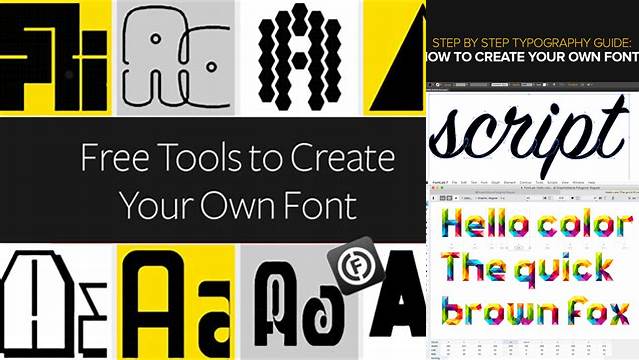
Create Font Free: Your Guide To Free Font Creation
Creating your own fonts might sound like a super complex task reserved for design pros, but guess what? It's totally achievable, and you can even do it for free! Whether you're a seasoned designer or just someone who loves to doodle, the world of font creation is surprisingly accessible. Let's dive into how you can create font free and unleash your inner typographer.
1. Introduction to Free Font Creation
So, what's the big deal about creating your own fonts? Well, creating font free gives you the power to express your unique style and vision. Imagine having a font that perfectly captures your brand's personality or a handwritten font that adds a personal touch to your projects. The possibilities are endless! Plus, it's a fantastic way to learn about typography and design. This section will cover the basic concepts of font creation and why you might want to embark on this creative journey. We'll look at the different types of fonts you can create, from elegant serifs to playful sans-serifs, and discuss the importance of understanding typography principles. Think of it as your 101-level class in the art of font design!
2. Software Options for Free Font Design
Okay, you're pumped to create font free, but what tools do you need? Luckily, there's a bunch of awesome software out there that won't cost you a dime. We're talking about free font editors that pack a punch. These programs often come with all the essential features you need to draw glyphs, adjust spacing, and export your font in various formats. We'll explore some of the top contenders in the free font design software arena. Think of tools like FontForge, BirdFont, and Glyphr Studio. Each has its own quirks and strengths, so we'll help you figure out which one is the best fit for your needs. We’ll cover the user interfaces, the features, and even some tips and tricks to get you started. It’s like having a personal software guide to navigate the world of free font creation!
3. Understanding Font Anatomy
Before you jump into creating font free, let's get familiar with the anatomy of a font. Sounds like a science class, right? But trust us, knowing your serifs from your ascenders will make a huge difference in your font design. We'll break down all the key elements of a letterform, from the baseline to the x-height and everything in between. Understanding these terms will give you the vocabulary to discuss fonts intelligently and to make informed design decisions. We’ll use visual examples to illustrate each term and show you how they work together to create a cohesive typeface. It’s all about building a solid foundation of knowledge so you can create font free with confidence and skill.
4. Basic Principles of Typography
So you’re eager to create font free? Awesome! But remember, a great font isn't just about pretty shapes; it's about readability and usability too. This is where typography principles come in. We'll delve into the core concepts of kerning, leading, and tracking. These might sound like technical terms, but they're crucial for ensuring your font looks good in any context. We'll explain how to adjust the spacing between letters and lines to achieve optimal readability. We’ll also discuss how different font styles can evoke different emotions and how to choose the right font for your project. It’s like learning the secret language of typography – once you crack the code, you can communicate more effectively through your designs!
5. Drawing Your First Glyph
Alright, let's get our hands dirty and draw some letters! This section is all about the practical steps of creating font free. We'll walk you through the process of drawing your first glyph, which is essentially a single character in your font. We'll cover different techniques for creating letterforms, whether you prefer sketching by hand and digitizing your drawings or working directly in your font editor. We’ll use examples and step-by-step guides to make the process clear and easy to follow. We’ll also discuss common pitfalls to avoid and tips for achieving consistency in your letterforms. It’s like a mini-workshop where you’ll learn to bring your font ideas to life, one letter at a time.
6. Kerning and Spacing Techniques
Kerning and spacing – sounds technical, but it's the secret sauce to a professional-looking font. When you create font free, getting this right is key. We'll teach you how to adjust the spaces between letters so your words flow smoothly. Think of it like fine-tuning a musical instrument – each letter needs to harmonize with its neighbors. We’ll cover different kerning techniques and show you how to use your font editor’s tools to achieve perfect spacing. We’ll also discuss common kerning problems and how to fix them. It’s like becoming a font whisperer, able to make subtle adjustments that have a big impact on readability and visual appeal.
7. Mastering Bézier Curves for Font Design
Bézier curves – the backbone of digital font design! If you want to create font free that looks polished and professional, you need to master these curves. We'll break down the mystery of Béziers, explaining how they work and how to use them to create smooth, elegant shapes. We'll cover the tools and techniques for manipulating Bézier curves in your font editor. We’ll also share tips for avoiding common mistakes and achieving precise control over your letterforms. It’s like unlocking a superpower – once you understand Bézier curves, you can create virtually any shape you can imagine!
8. Creating Different Font Weights
A single font can come in many weights – think light, regular, bold, and so on. When you create font free, knowing how to make these variations is essential for versatility. We'll guide you through the process of creating different font weights, explaining how to adjust the stroke thickness and overall appearance of your letterforms. We'll discuss design principles for maintaining consistency across different weights. We’ll also show you how to use your font editor’s features to streamline the process. It’s like learning to sculpt with letters, shaping them to fit a variety of design needs.
9. Adding Italics and Obliques
Italics and obliques add flair and emphasis to your typography. If you’re serious about create font free, you’ll want to know how to make them. We'll explain the difference between italics and obliques and walk you through the process of creating them for your font. We'll cover design considerations for ensuring your italics and obliques complement your regular font style. We’ll also show you how to use your font editor’s tools to create these variations efficiently. It’s like adding a new dimension to your font, giving it the ability to dance and sing in different styles.
10. Exploring Ligatures and Special Characters
Ligatures and special characters add polish and personality to your font. To truly create font free that shines, these details matter. We'll explore the world of ligatures, which are special letter combinations, and show you how to create them. We'll also discuss the process of adding accents, symbols, and other special characters to your font. We’ll cover the technical aspects of encoding these characters and making them accessible in your font editor. It’s like adding the finishing touches to a masterpiece, ensuring your font is both beautiful and functional.
11. Testing Your Font for Readability
Creating a beautiful font is one thing; making sure it's readable is another. When you create font free, testing is crucial. We'll discuss various methods for testing your font's readability in different contexts. We'll cover best practices for text sizing, line spacing, and color contrast. We’ll also show you how to use online tools and software to evaluate your font’s performance. It’s like putting your font through its paces, ensuring it’s ready for the real world.
12. Exporting Your Font in Different Formats
Once you've created your font, you need to export it in the right format. If you want to create font free and then actually use it, this step is key. We'll explain the different font formats, such as TTF, OTF, and WOFF, and their respective advantages. We'll walk you through the process of exporting your font in your chosen format using your font editor. We’ll also cover best practices for optimizing your font for different platforms and devices. It’s like packing your font for its journey into the world, ensuring it arrives safe and sound.
13. Licensing Your Free Font
So you create font free and want to share it? Awesome! But think about licensing. We'll discuss different font licenses, such as the SIL Open Font License and Creative Commons licenses. We'll explain the implications of each license and help you choose the right one for your font. We’ll also provide guidance on how to properly attribute your font and protect your intellectual property. It’s like setting the rules of the game, ensuring your font is used in a way that aligns with your intentions.
14. Sharing Your Font with the World
You've poured your heart into creating font free – now it's time to share it! We'll explore various platforms and communities where you can showcase and distribute your font. We'll cover online font foundries, design marketplaces, and social media channels. We’ll also offer tips for promoting your font and building a following for your work. It’s like launching your font into the universe, ready to make its mark on the world.
15. FontForge Tutorial for Beginners
FontForge is a powerful, free font editor. If you want to create font free, this is a great tool. We'll provide a comprehensive tutorial for beginners, covering the basics of the FontForge interface and workflow. We'll walk you through the process of drawing glyphs, adjusting spacing, and exporting your font. We’ll also share tips and tricks for mastering FontForge’s advanced features. It’s like having a personal FontForge mentor, guiding you through every step of the way.
16. Glyphr Studio: A Web-Based Font Editor
Glyphr Studio offers an accessible way to create font free right in your browser. We'll explore the features and benefits of this web-based font editor. We'll provide a step-by-step guide to using Glyphr Studio, covering everything from creating new glyphs to exporting your font. We’ll also share tips for optimizing your workflow and making the most of Glyphr Studio’s unique tools. It’s like having a portable font creation studio at your fingertips, ready to use anytime, anywhere.
17. BirdFont: A Simple Yet Powerful Font Editor
BirdFont is another excellent choice for those looking to create font free without a steep learning curve. We'll review the key features and benefits of BirdFont. We'll provide a tutorial covering the basics of BirdFont's interface and workflow. We’ll also offer tips for using BirdFont’s unique features to create stunning fonts. It’s like discovering a hidden gem in the world of font editors, simple yet incredibly powerful.
18. Troubleshooting Common Font Design Issues
When you create font free, you'll likely hit some bumps along the road. We'll address common font design issues, such as inconsistent letterforms, spacing problems, and technical glitches. We'll provide troubleshooting tips and solutions to help you overcome these challenges. We’ll also offer advice on how to prevent these issues from arising in the first place. It’s like having a font doctor on call, ready to diagnose and fix any problems that come your way.
19. Font Creation for Different Languages
Creating fonts that support multiple languages adds complexity. But if you want to create font free for a global audience, it's worth it. We'll discuss the challenges and considerations for designing fonts that support different character sets. We'll cover best practices for creating accents, diacritics, and other language-specific glyphs. We’ll also provide resources and tools for testing your font’s language support. It’s like becoming a linguistic typographer, able to design fonts that speak to the world.
20. Font Design for Web vs. Print
Web fonts and print fonts have different requirements. When you create font free, keep this in mind. We'll explore the key differences between font design for the web and for print. We'll discuss best practices for optimizing your font for on-screen display and for printed materials. We’ll also cover the technical aspects of embedding fonts in websites and documents. It’s like becoming a font chameleon, able to adapt your designs to different media.
21. The Importance of Font Consistency
Consistency is key to a professional-looking font. To create font free that truly shines, ensure consistency. We'll emphasize the importance of maintaining consistency in your letterforms, spacing, and overall design. We'll provide tips for achieving consistency throughout your font, from the first glyph to the last. We’ll also show you how to use your font editor’s features to ensure consistency across your font family. It’s like becoming a font perfectionist, striving for harmony and balance in every detail.
22. Font Design Inspiration and Resources
Need a spark of creativity? If you create font free, inspiration is your best friend. We'll share a variety of resources for font design inspiration, including online galleries, design blogs, and historical typography references. We'll also provide tips for developing your own unique font style and voice. We’ll include a curated list of books, websites, and communities that can fuel your font design journey. It’s like having a treasure trove of creative inspiration at your fingertips, ready to ignite your imagination.
23. Creating a Handwritten Font Digitally
Handwritten fonts add a personal touch. If you want to create font free with a human feel, this is the way to go. We'll guide you through the process of creating a handwritten font digitally. We'll cover techniques for digitizing your handwriting, whether you prefer scanning your sketches or drawing directly on a tablet. We’ll also share tips for preserving the natural flow and character of your handwriting in your digital font. It’s like turning your handwriting into a digital signature, ready to personalize your projects.
24. Font Design for Logos and Branding
A custom font can elevate a logo or brand. If you want to create font free for branding, this section is for you. We'll discuss the principles of font design for logos and branding materials. We'll cover best practices for creating a font that reflects a brand's personality and values. We’ll also provide tips for ensuring your font is legible and memorable in different branding contexts. It’s like becoming a brand ambassador through typography, crafting fonts that communicate a brand’s essence.
25. Using Font Design Software on a Budget
Creating font free often means being savvy with resources. We'll offer tips for using font design software effectively on a budget. We'll explore free alternatives to expensive software and discuss how to maximize the value of free trials and discounts. We’ll also share strategies for learning new software skills without breaking the bank. It’s like becoming a font design economist, getting the most bang for your buck.
26. The Future of Font Design
The world of font design is constantly evolving. Thinking about the future can inspire you when you create font free. We'll speculate on the future trends and technologies in font design. We'll discuss the potential impact of variable fonts, artificial intelligence, and other emerging technologies. We’ll also offer insights into how these trends might shape the way we create and use fonts in the future. It’s like peering into a crystal ball, glimpsing the exciting possibilities of font design to come.
27. Font Design Best Practices
To truly create font free that stands out, follow best practices. We'll summarize the key principles and best practices for font design. We'll cover everything from drawing glyphs to testing readability and exporting your font. We’ll also provide a checklist of essential steps to follow when designing a font. It’s like having a comprehensive guide to font design success, ensuring you cover all the bases.
28. Monetizing Your Free Fonts
Could you make money from the fonts you create font free? Let's explore how! We'll discuss different ways to monetize your free fonts, such as selling licenses, offering custom font design services, and creating font-related products. We'll also provide tips for pricing your fonts and marketing them effectively. It’s like turning your passion for font design into a potential income stream.
29. Building a Font Design Portfolio
A strong portfolio showcases your skills. If you create font free and want recognition, a portfolio is essential. We'll guide you through the process of building a font design portfolio. We'll cover best practices for showcasing your fonts online and in print. We’ll also provide tips for writing compelling case studies and descriptions for your font designs. It’s like creating a visual resume for your font design talents, ready to impress potential clients and employers.
30. Continuous Learning in Font Design
Font design is a skill that grows with practice. When you create font free, never stop learning. We'll emphasize the importance of continuous learning in font design. We'll suggest resources for staying up-to-date with the latest trends and technologies. We’ll also offer tips for seeking feedback on your font designs and improving your skills over time. It’s like embarking on a lifelong journey of font design mastery, constantly refining your craft and pushing your creative boundaries.
So there you have it! Creating font free is an exciting adventure, and with the right tools and knowledge, you can craft stunning typefaces that reflect your unique vision. Happy font-making, guys!